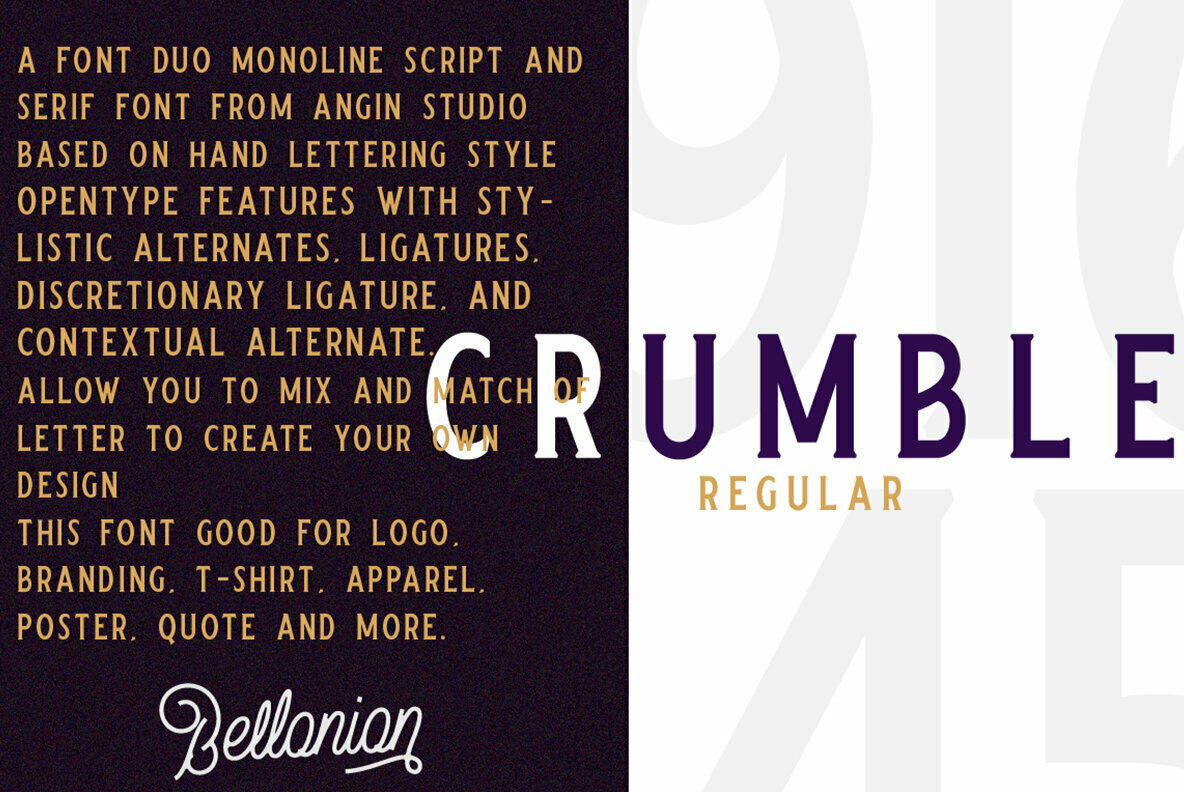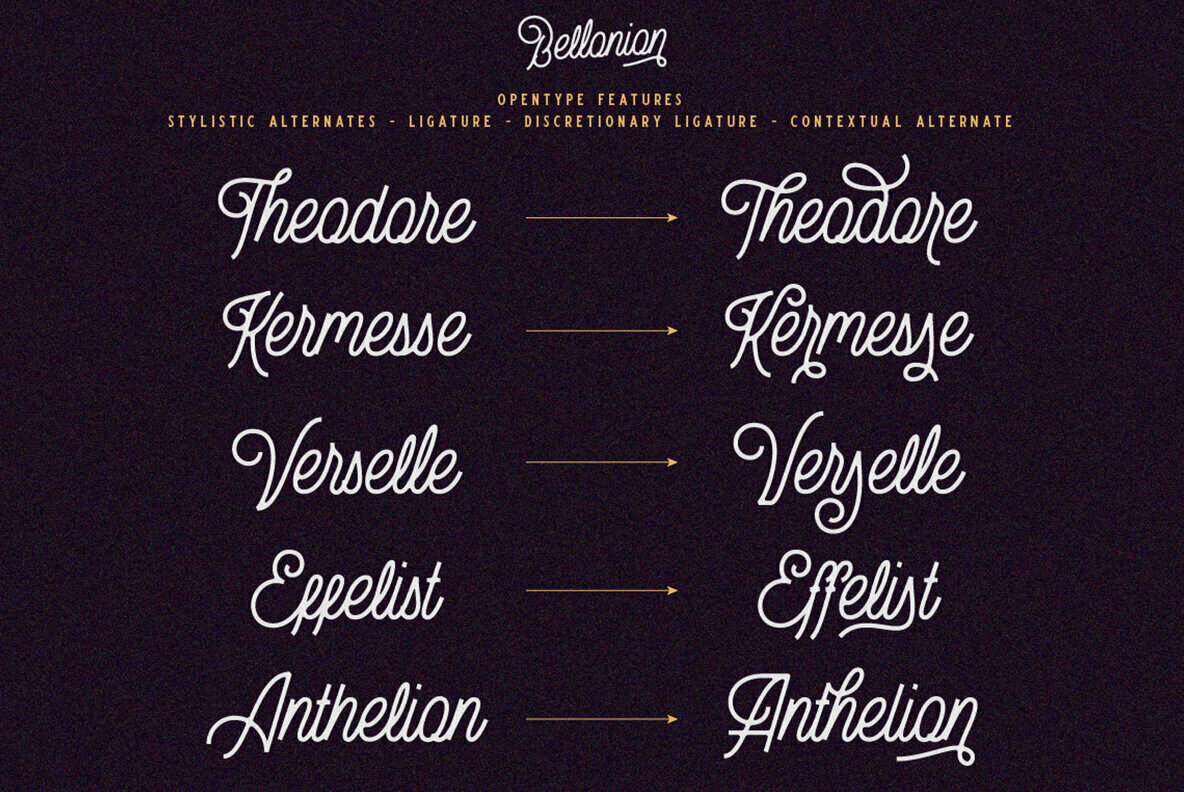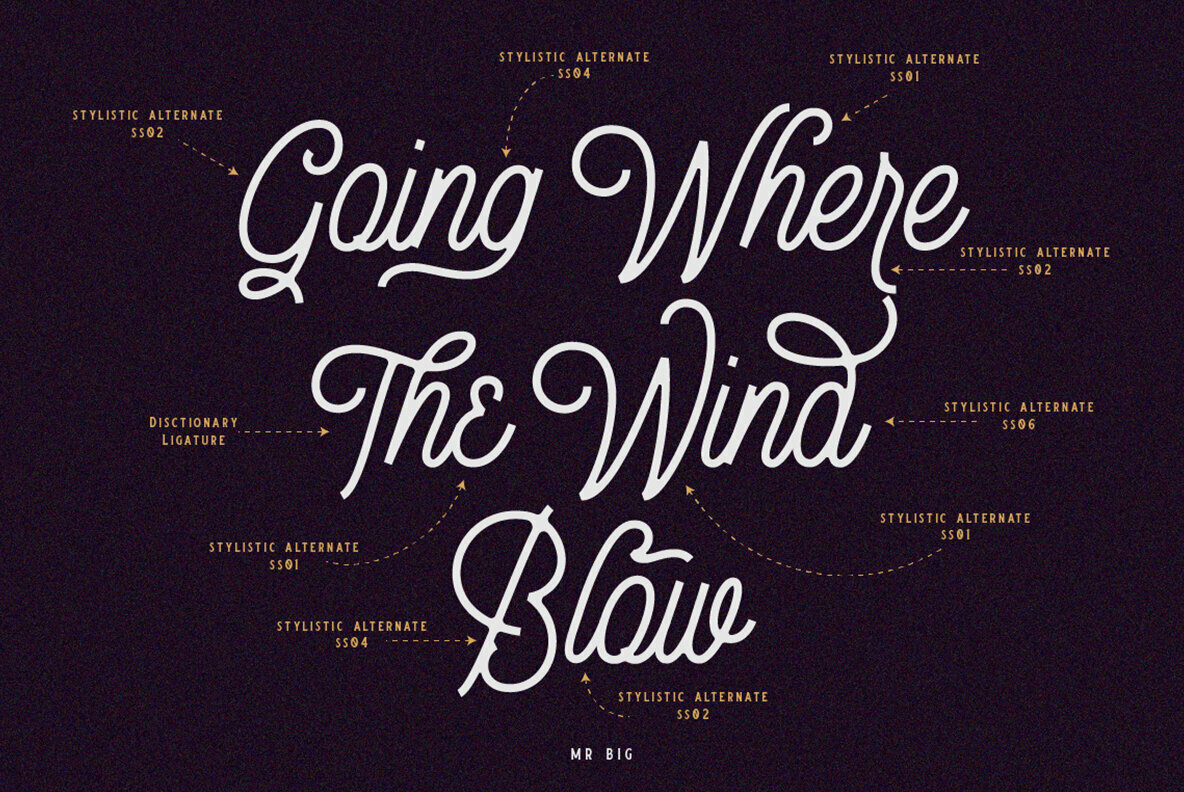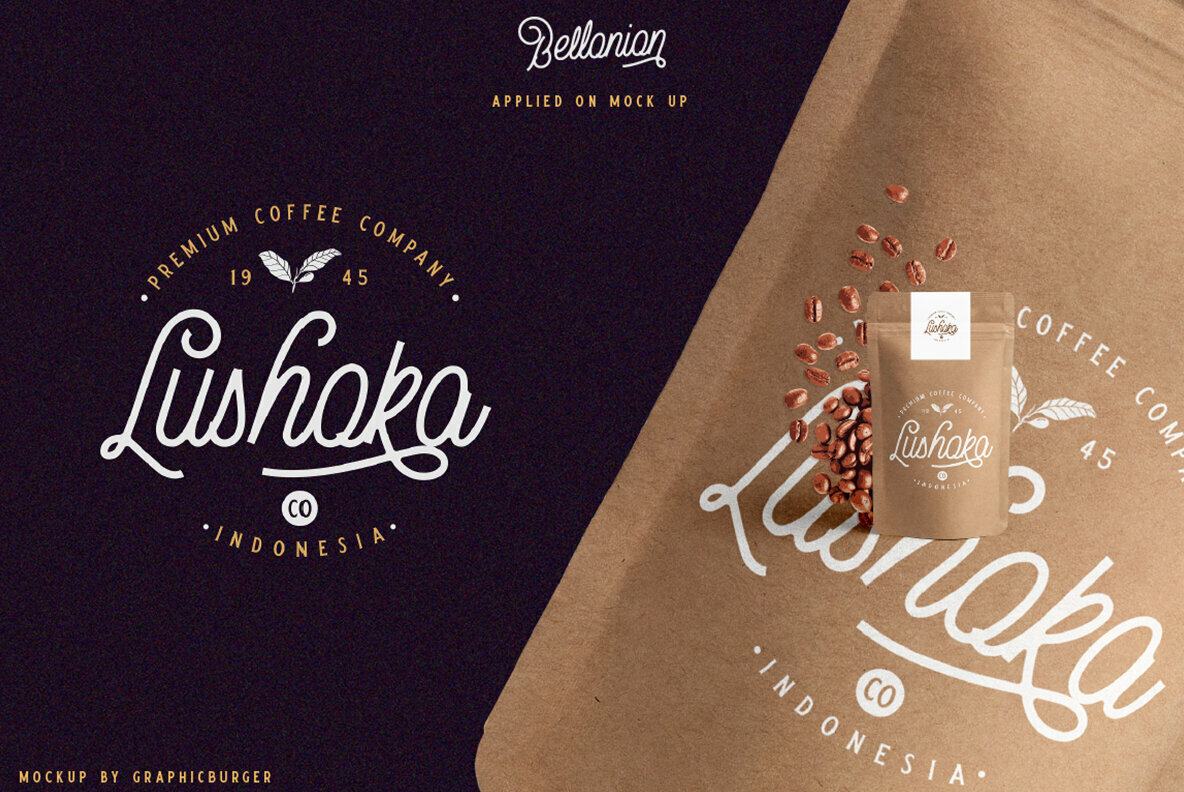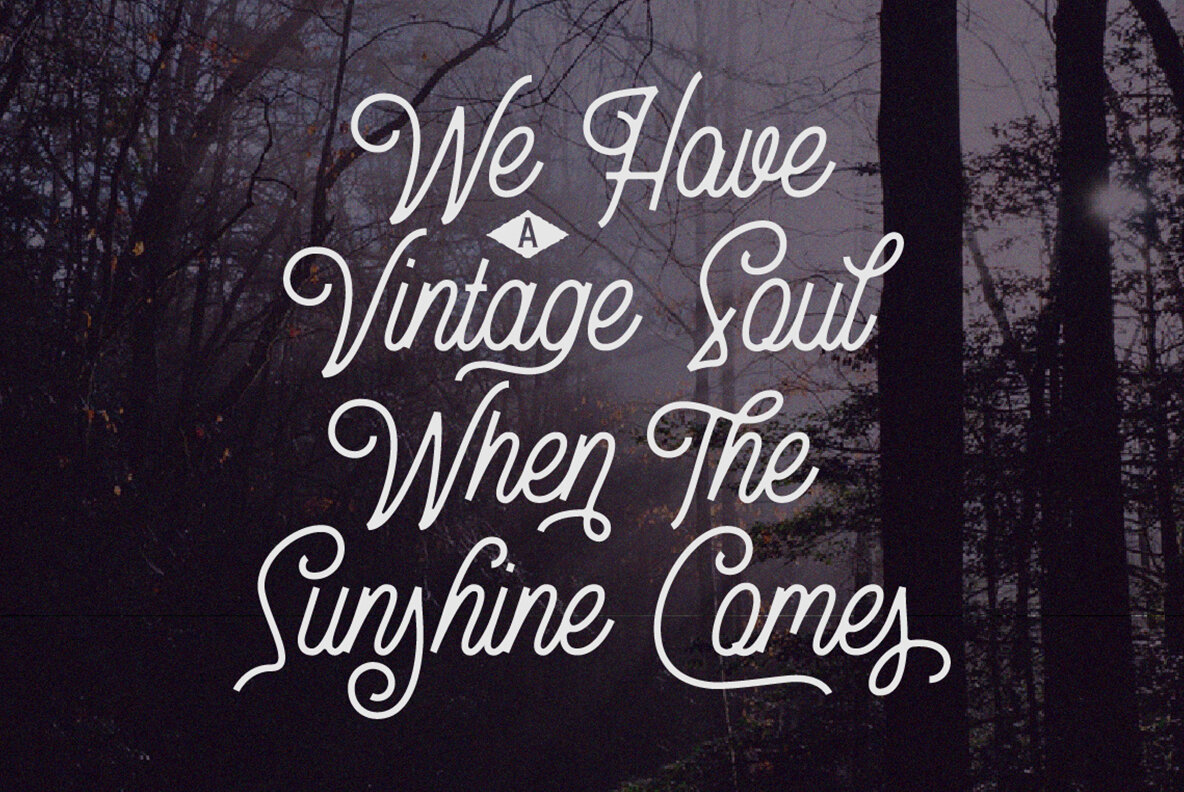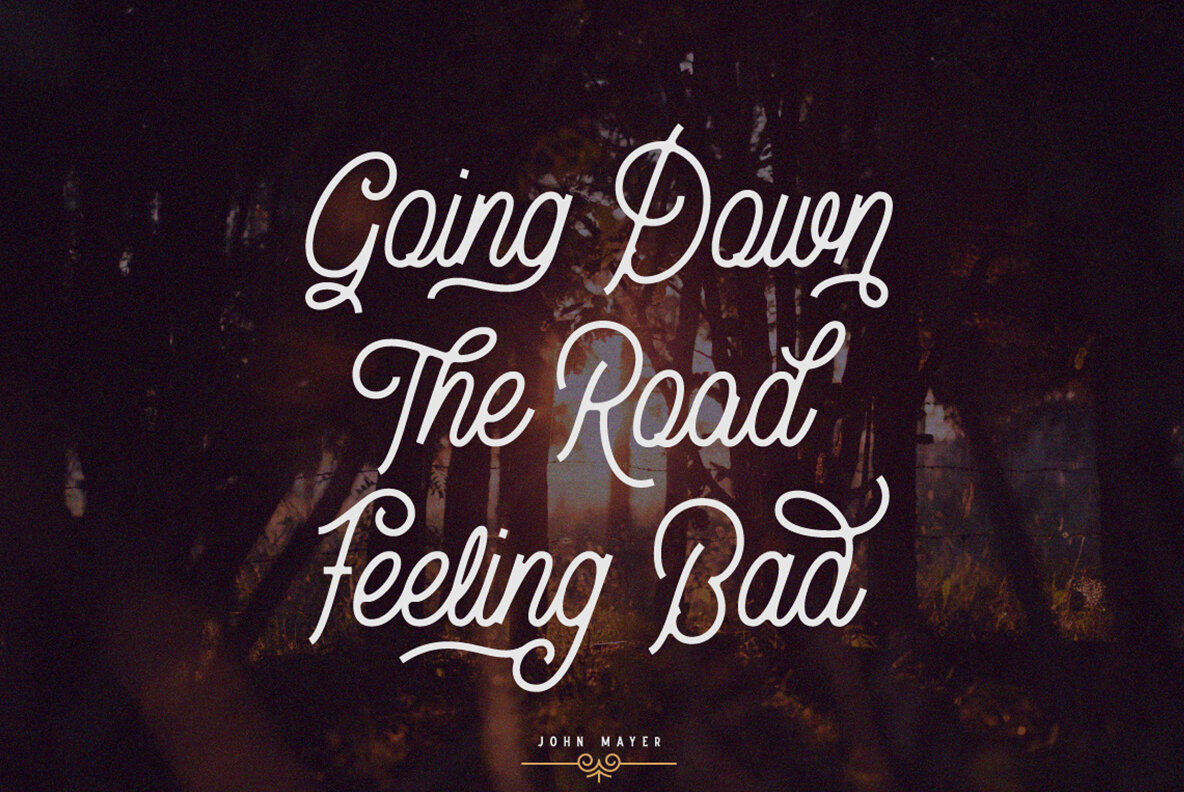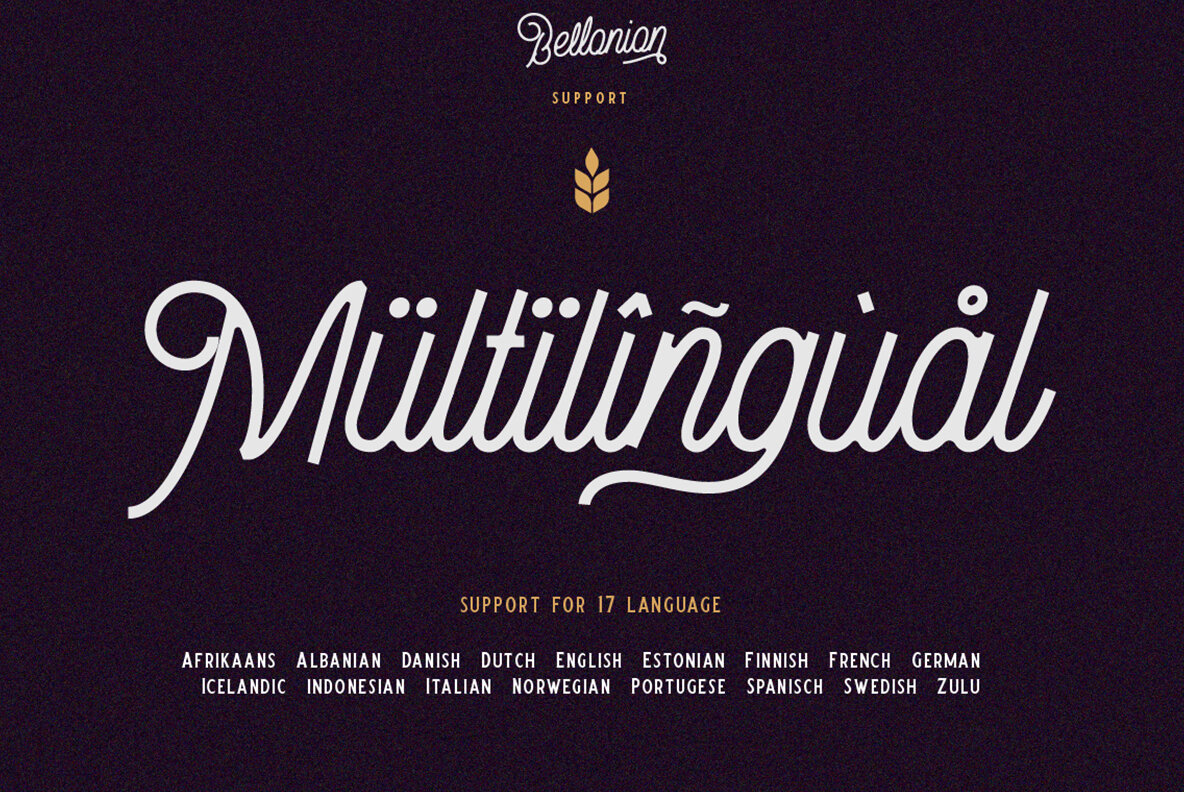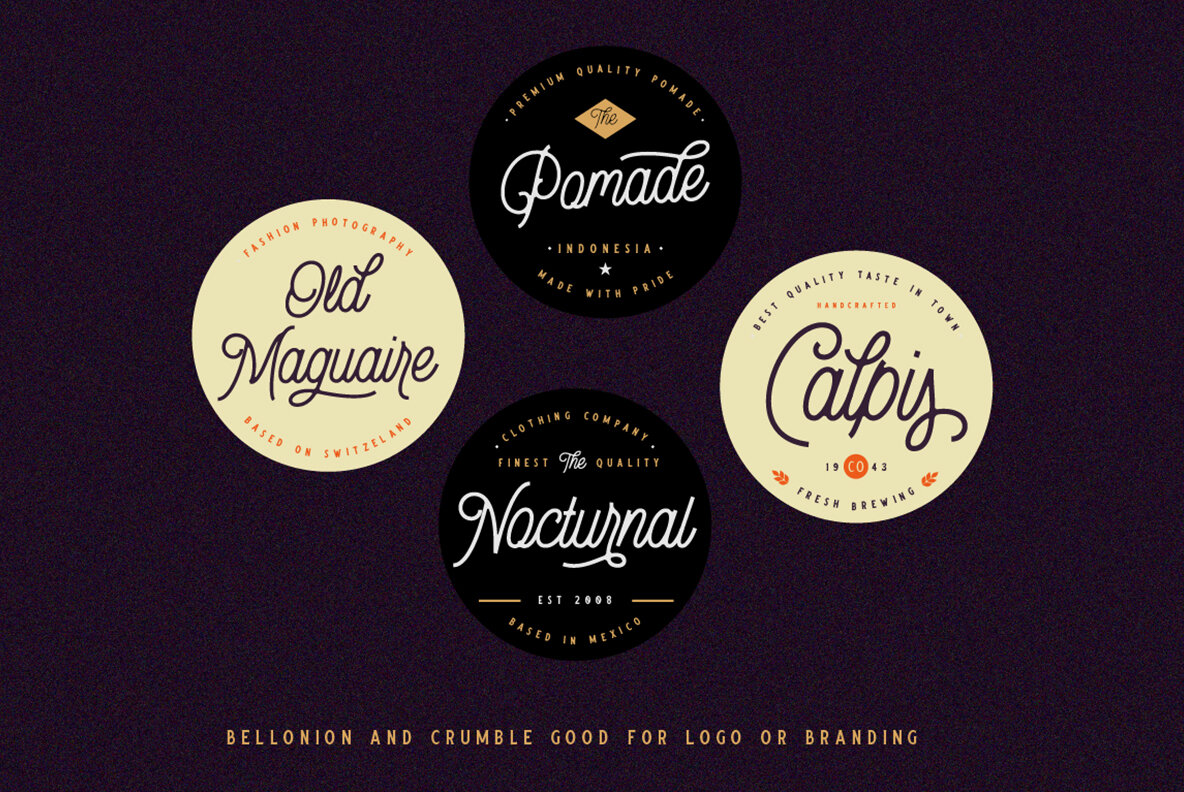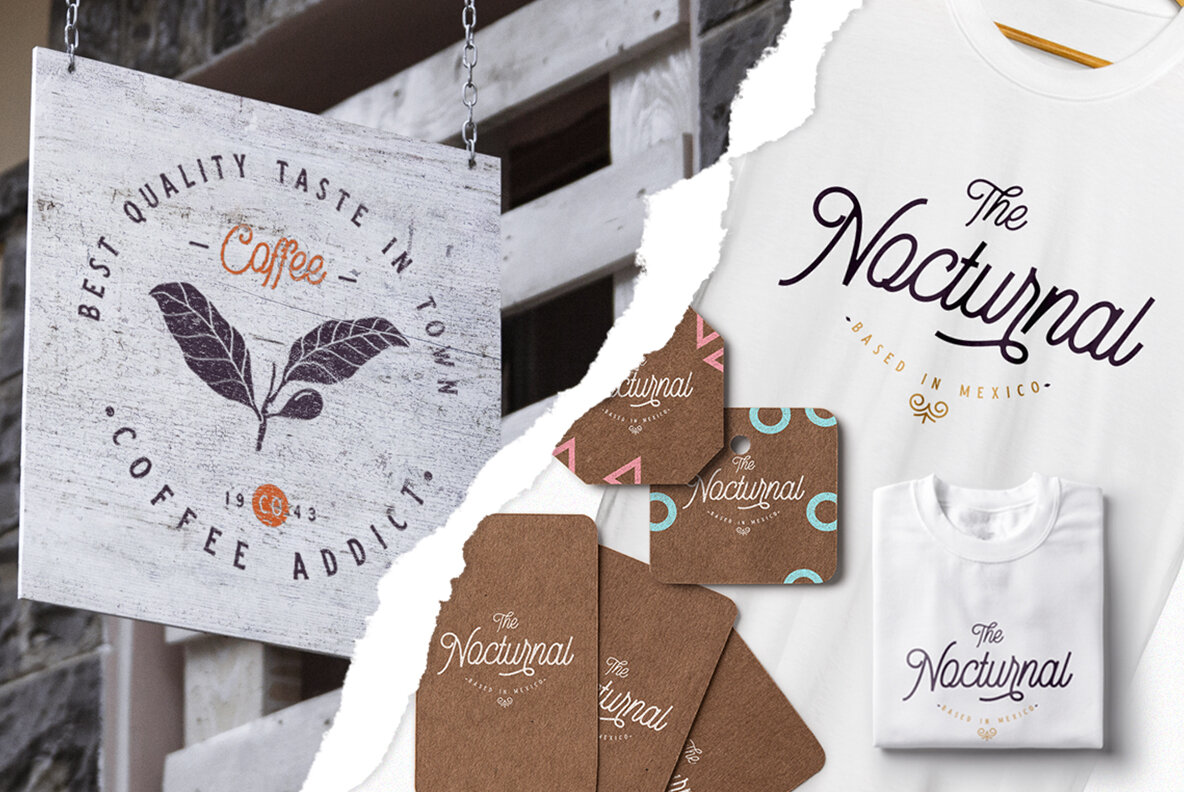
Bellonion Font Duo
Bellonion is a monoline script made based on our handlettering. Create carefully so it have a unique character and make you feel something different, Bellonion will give a beautiful touch on your design.
Bellonion have an alternates character so it will give you the opportunity to mix and match the letter and make your design more interesting and more expressive.
Also comes with perfectly paired serif font called Crumble. This Duo you can used for creating T-shirt design, Poster, Labels, Logo, etc.